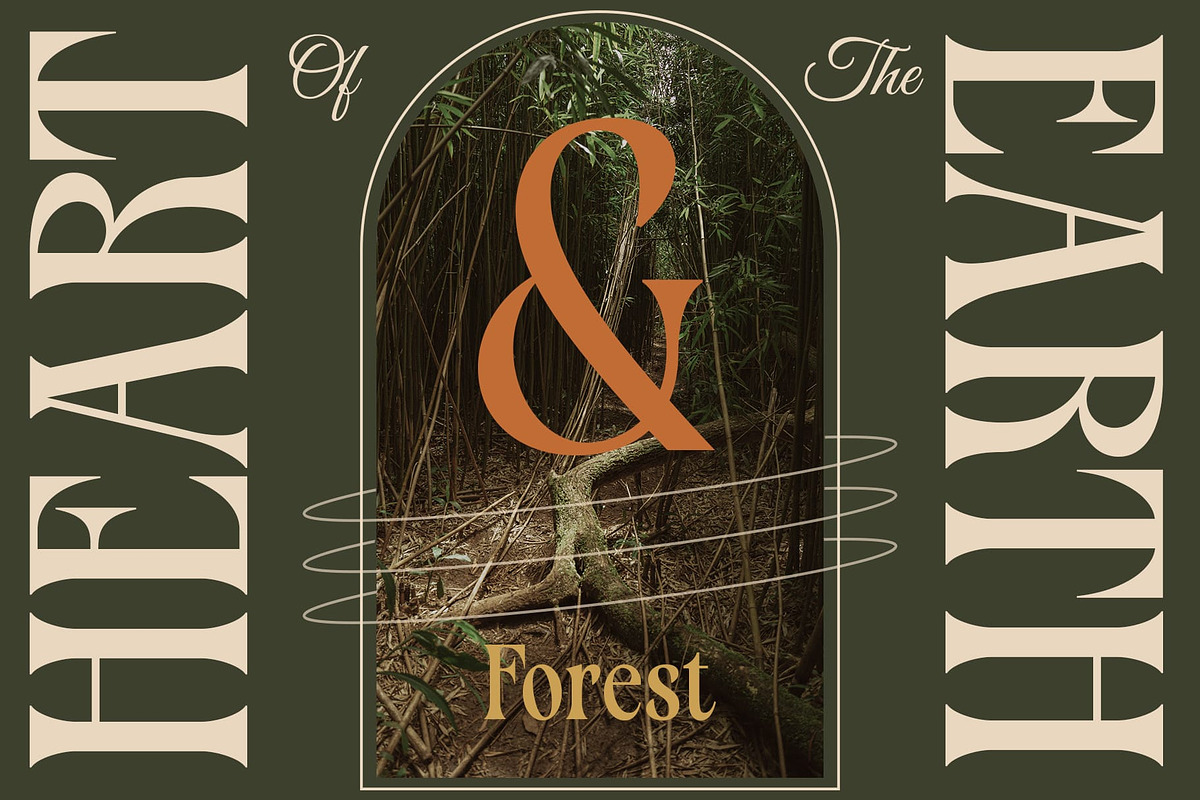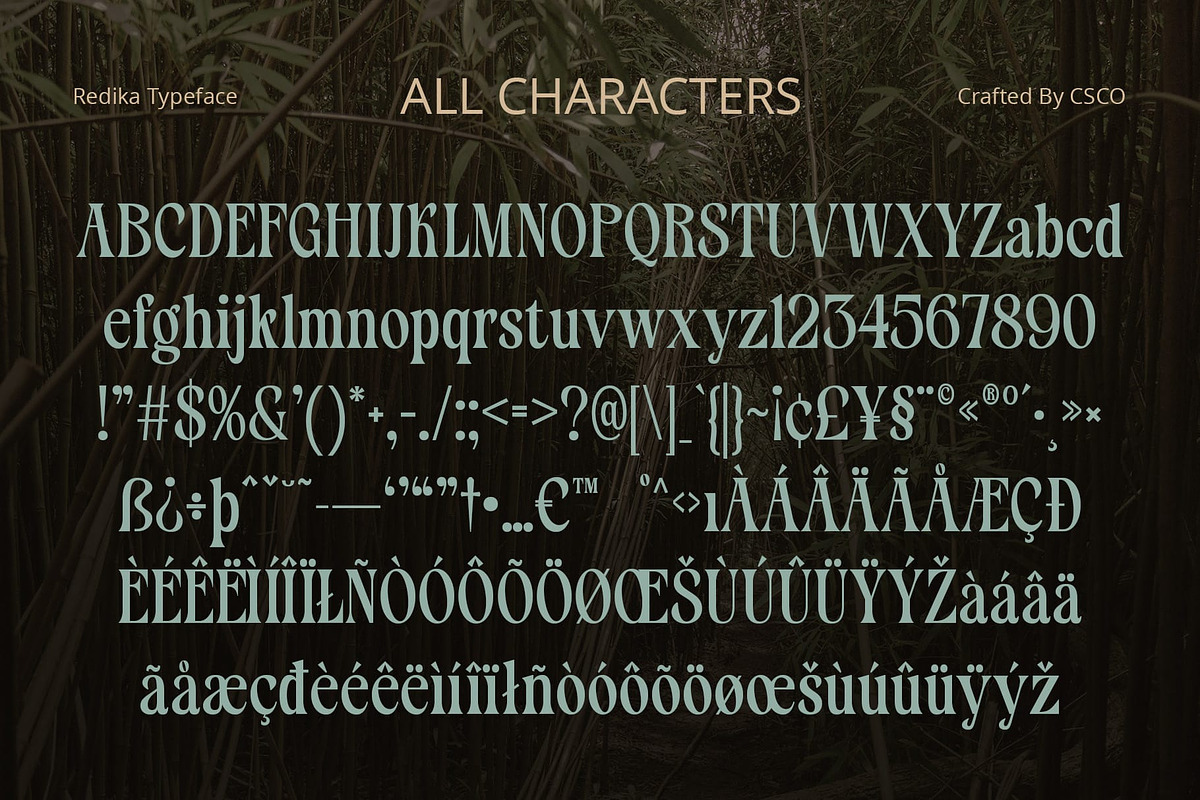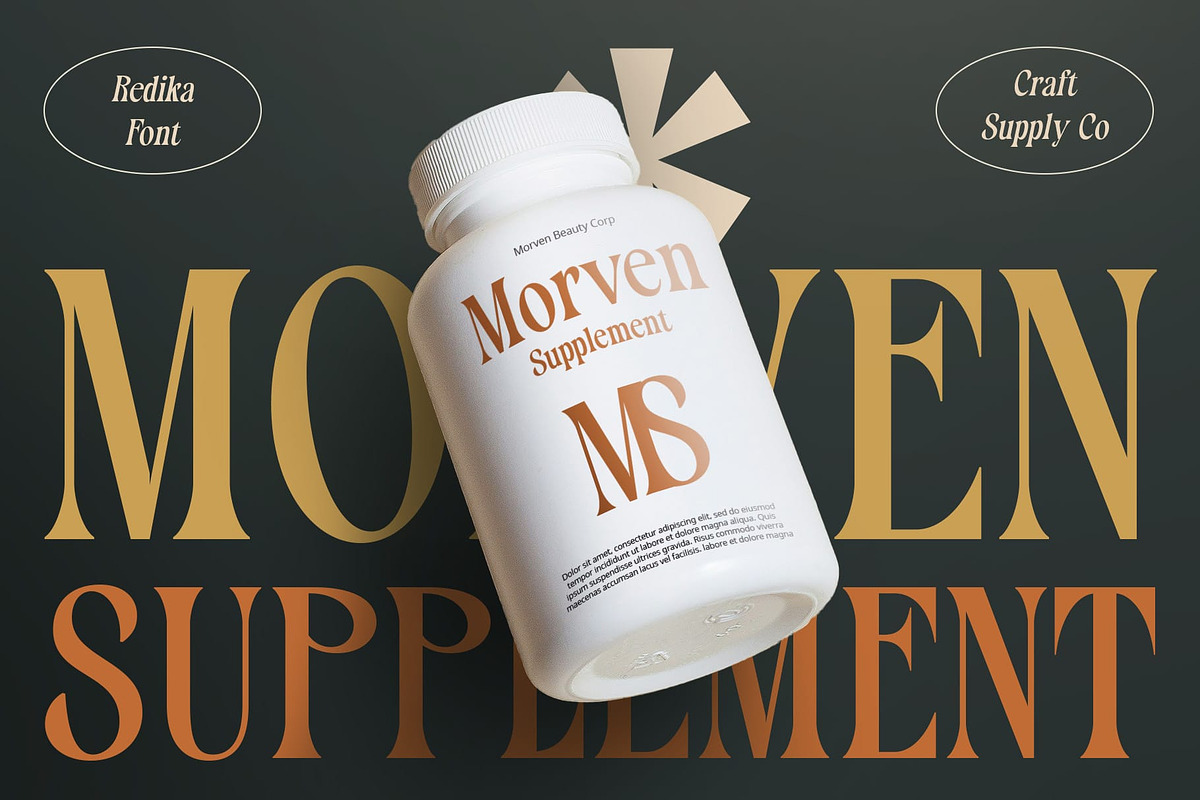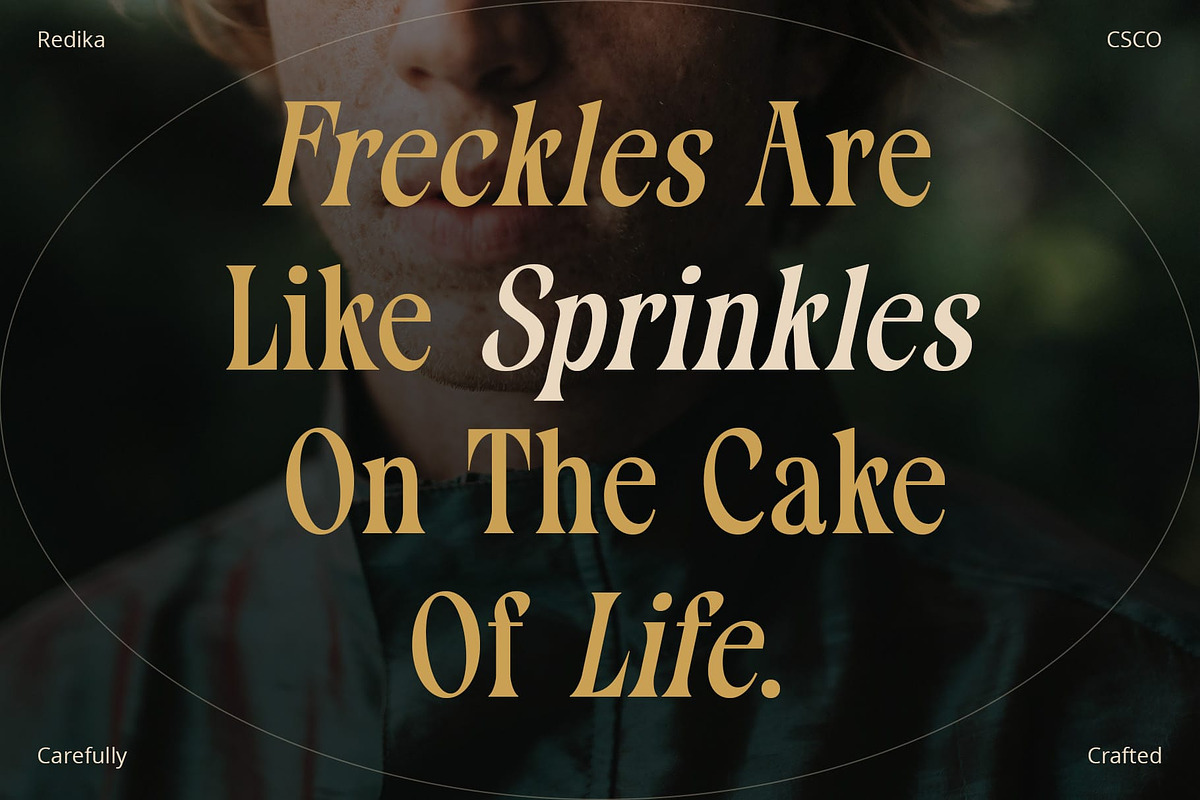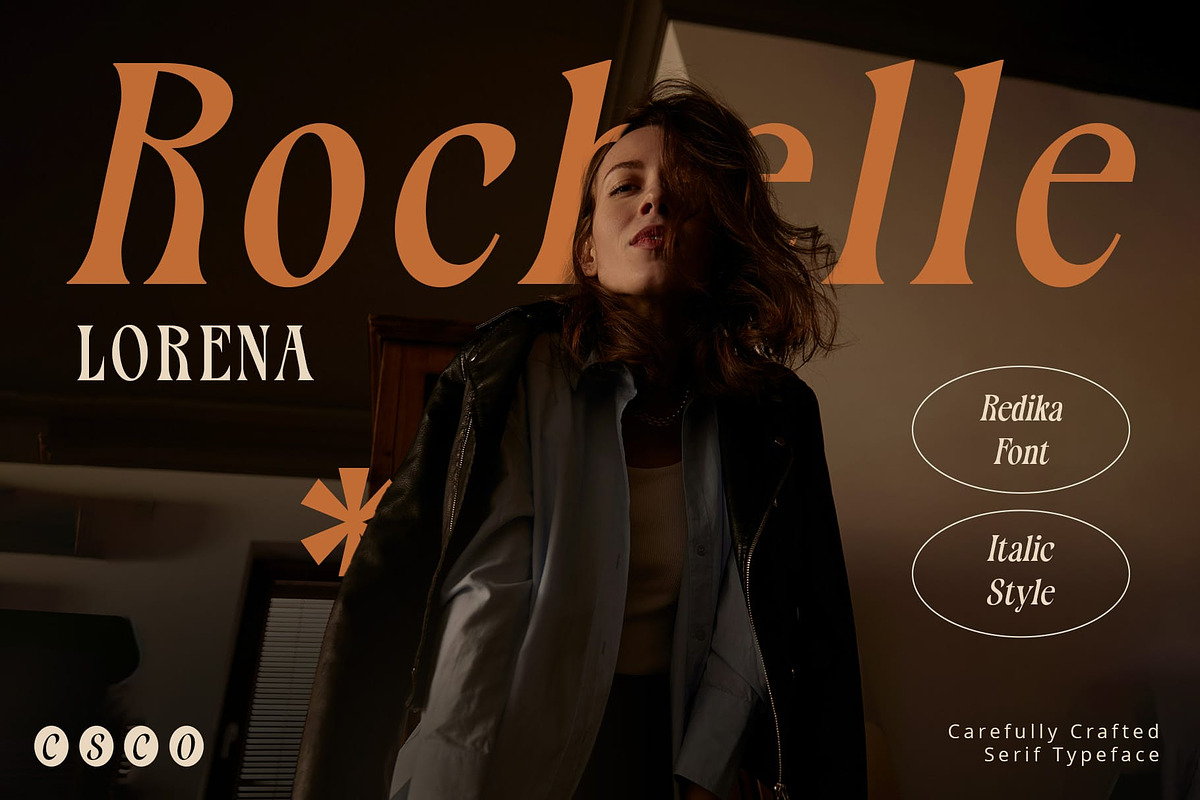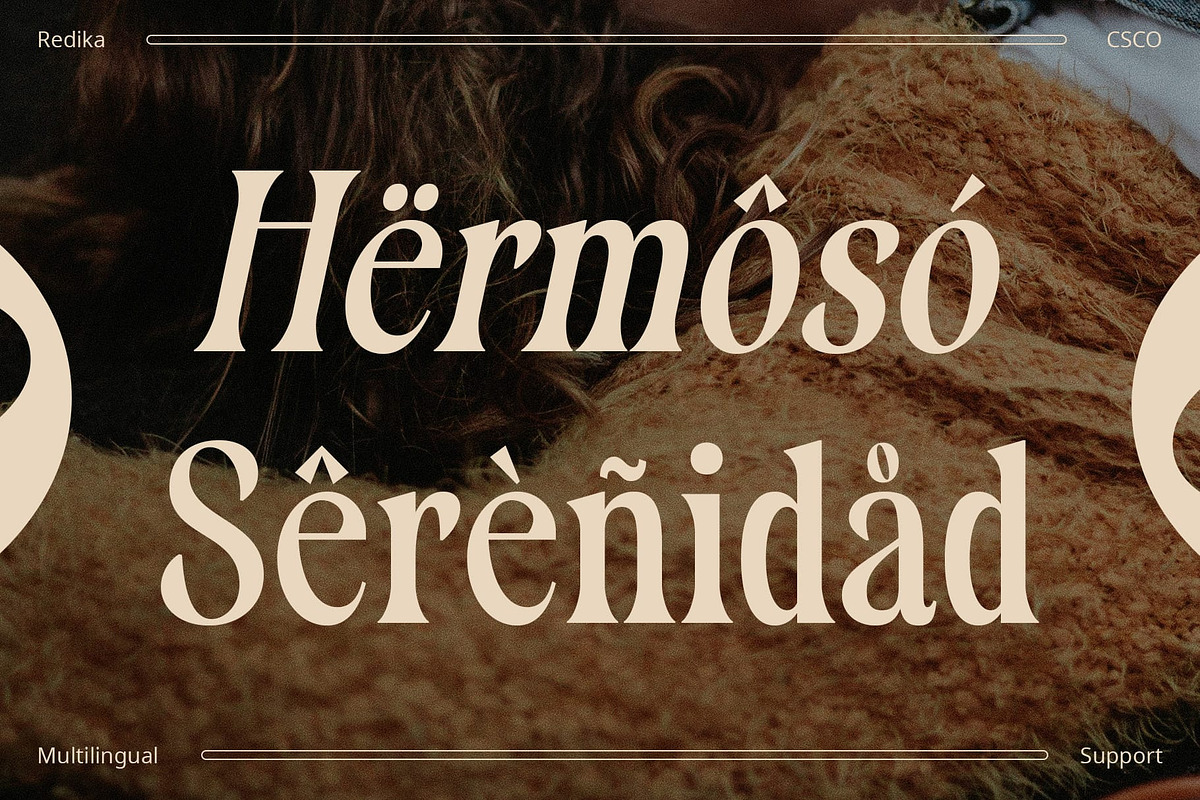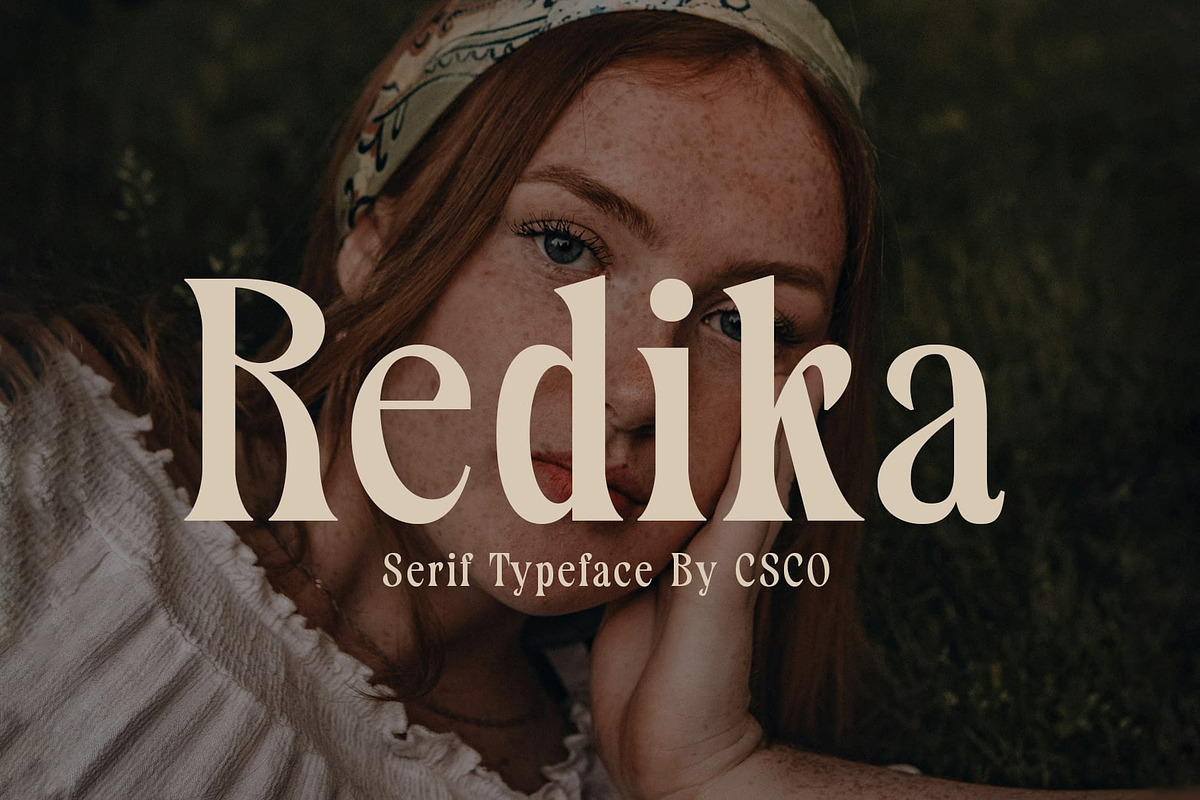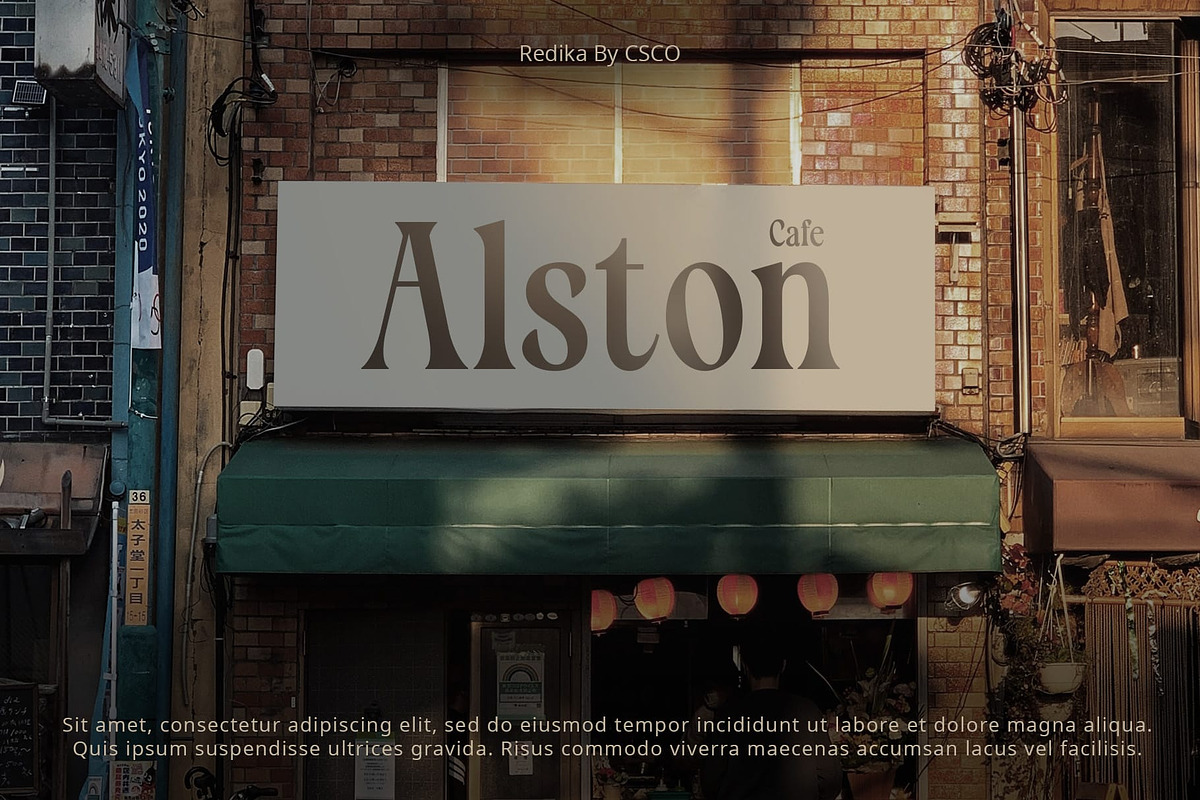
Redika – Retro Serif
Redika – Retro Serif: Condensed Elegance
Sleek and Condensed Design Redika boasts a sleek and condensed design, perfect for capturing attention in any retro-themed project. Its compact nature allows for efficient use of space without compromising on style.
Smooth Curves and Retro Vibes With its smooth, curvaceous serifs, This font exudes retro vibes reminiscent of mid-century typography. The graceful curves add a touch of elegance while maintaining a vintage aesthetic.
Condensed Elegance for Retro Designs This condensed form exudes elegance, making it the perfect choice for retro-inspired designs. Whether it’s vintage posters, magazine layouts, or branding materials, Redika adds a nostalgic charm to any project.
Versatile Application and Timeless Appeal Redika retro serif style and condensed design make it versatile for various applications. Its timeless appeal ensures that it remains a go-to choice for designers seeking to evoke a sense of nostalgia in their work.
Retro Serif Condensed This font combines condensed elegance with smooth, retro-inspired serifs, making it ideal for a wide range of projects. Its sleek design and timeless appeal add a touch of vintage charm to any design, from posters to branding materials.